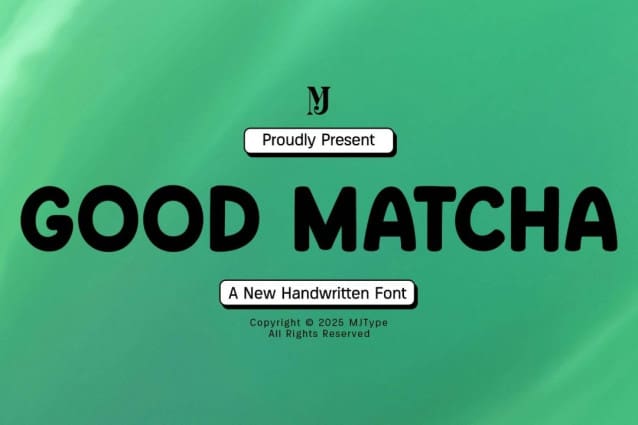
Good Matcha Font
Good Matcha Font is a chunky, comic, and cartoon display font. With its neat and joyful personality, this font will enhance any project you wish to create!